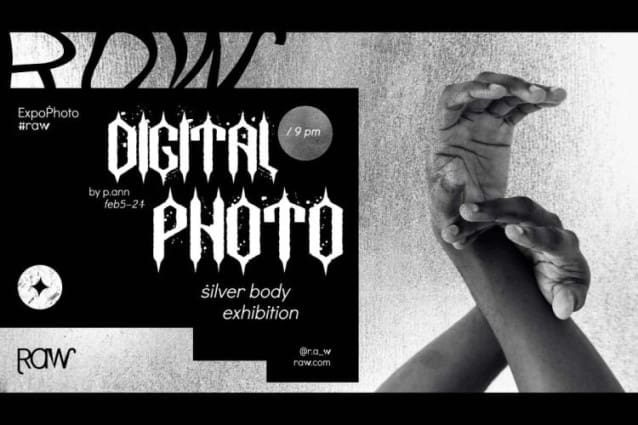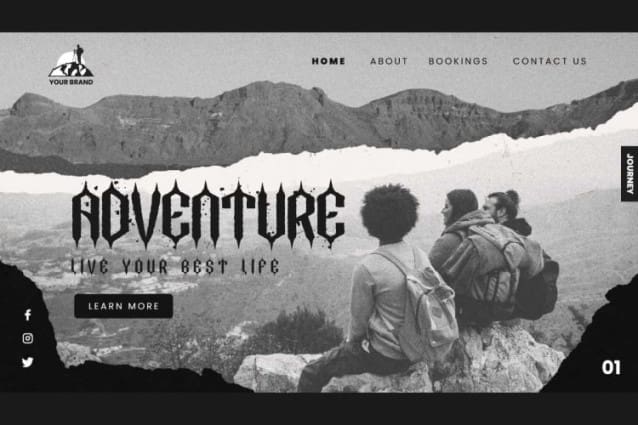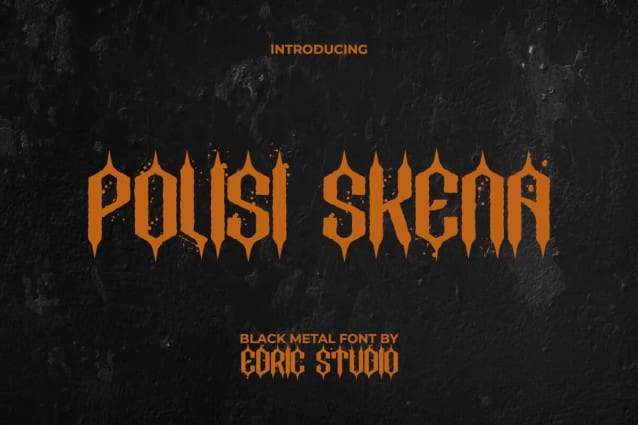
Polisi Skena Font is a exquisite hardcore black metal font with a little sense of retro urban font with a shape similar to blackletter but the dark theme of this font is modern metal. This font will be a great choice for branding identity, business cards, flyer, illustrations, logos, mockup design, posters, t-shirt screen printing, text art on background, template, websites and more.
Polisi Skena Font includes a complete set of ALL CAPS for upper and lower case letters, Numbers, Punctuation and Symbols. This font features a gothic metal typeface that has been modernized with the metallic strength of haunting speckled thorn decorations resulting in a unique and visually appealing typographic experience. The font will be good and suitable for clothing brand, fashion, film, graphic design, movies, music festival, nature tourism agent, photography, etc.